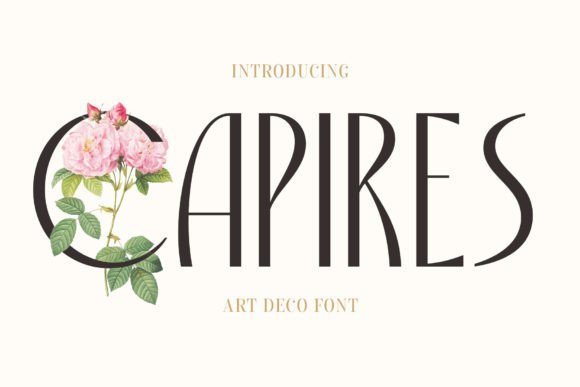
Capires Font: Where Art Deco Meets Art Nouveau
Have you ever stumbled upon an old book or antique piece that sparks your imagination and transports you to a bygone era? That’s exactly what happened to me when I first laid eyes on the Capires Font. This captivating typeface is a beautiful blend of Art Deco and Art Nouveau, two iconic art movements that come together in perfect harmony. The result is a unique and mesmerizing design that pays homage to the rich artistic heritage of both styles.
The Capires Font is more than just a typeface – it’s a key to unlocking timeless elegance and artistic richness in your designs. Whether you’re working on branding, packaging, or editorial design, this font brings a sense of refinement and beauty to your work. By seamlessly bridging the gap between past and present, Capires Font transforms your creations into an elegant and visually captivating experience.
Capires Font Key Features
- Font Family: Capires is a sans-serif font family designed for digital use.
- Unique Characteristics: Capires features a clean and modern design with a unique x-height and stroke width, making it suitable for a wide range of applications, including digital signage, web design, and print materials.
Capires Font Review
I recently had the chance to work with Capires Font, and here’s my honest take on this typeface.
- Unique aesthetic: Capires Font has a distinct, hand-drawn feel that sets it apart from more traditional sans-serif fonts.
- Legibility: Despite its decorative flair, Capires Font is surprisingly readable, even at smaller font sizes.
- Customization options: The font includes a range of weights and styles, allowing for a good deal of flexibility in its application.
- Complexity: Capires Font can be a bit overwhelming to work with, particularly for those without extensive design experience.
- Compatibility issues: I encountered some minor issues with compatibility across different operating systems and browsers.
Capires Font is a bold, eye-catching typeface that’s well-suited for projects where a unique aesthetic is key. While it may present some challenges, particularly for less experienced designers, the rewards are certainly worth the effort. With a bit of patience and practice, Capires Font can add a touch of sophistication and personality to even the most mundane designs.
Getting the Most Out of Capires Font
To get the most out of Capires Font, experiment with different font sizes, colors, and styles to find the perfect balance for your design. You can also pair the font with other complementary fonts to create a unique and visually appealing look.
Capires Font is ideal for use in creative projects, such as logos, branding materials, and marketing campaigns. It’s also suitable for use in editorial and publishing projects, such as magazines, newspapers, and e-books.
Alternatives to Capires Font for Designers
Montserrat is a geometric sans-serif font designed for digital use. It is ideal for use in titles, headings, and body text where a clean and modern aesthetic is desired. Montserrat is more versatile than Capires Font, with a wider range of weights and styles available, making it suitable for a variety of design projects.
Comparison to Capires Font: Montserrat has a more geometric and modern feel compared to Capires Font’s rounded and elegant appearance. Montserrat is also more versatile and widely used, making it a popular choice among designers.
Lato is a sans-serif font that is highly legible and versatile. It is suitable for use in body text, titles, and headings where a clean and elegant appearance is desired. Lato is more legible than Capires Font, making it ideal for use in digital media such as websites and apps.